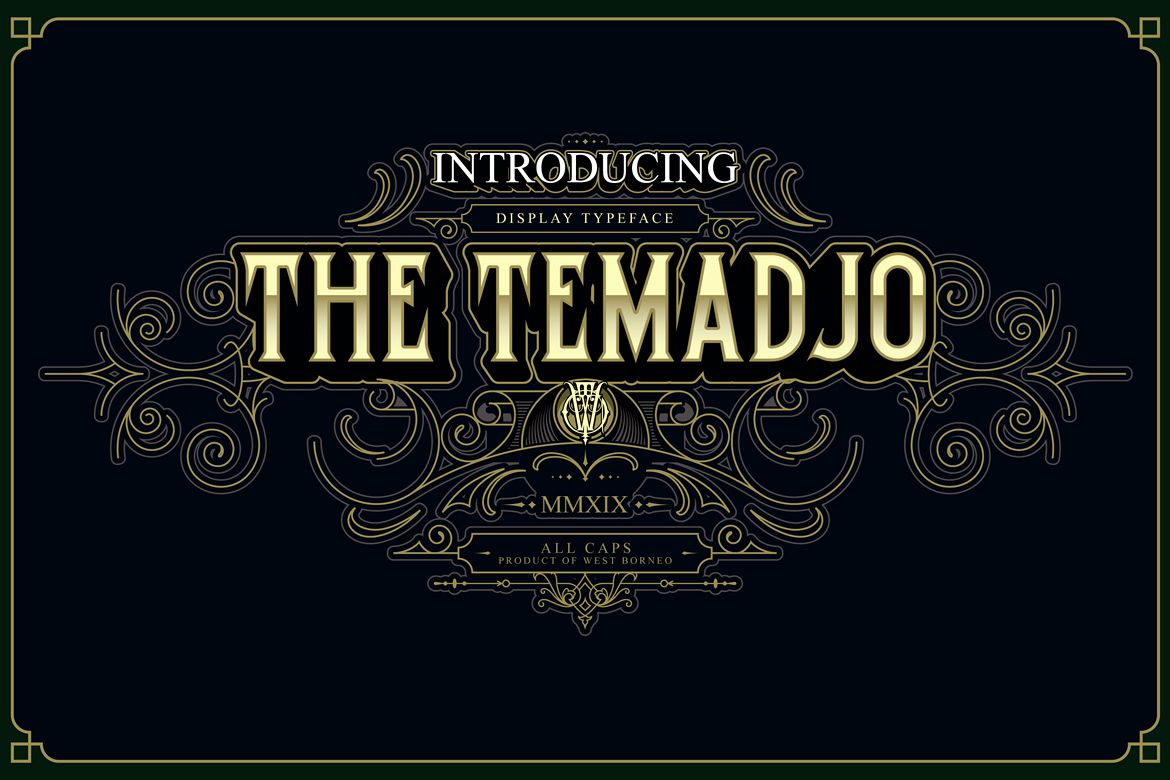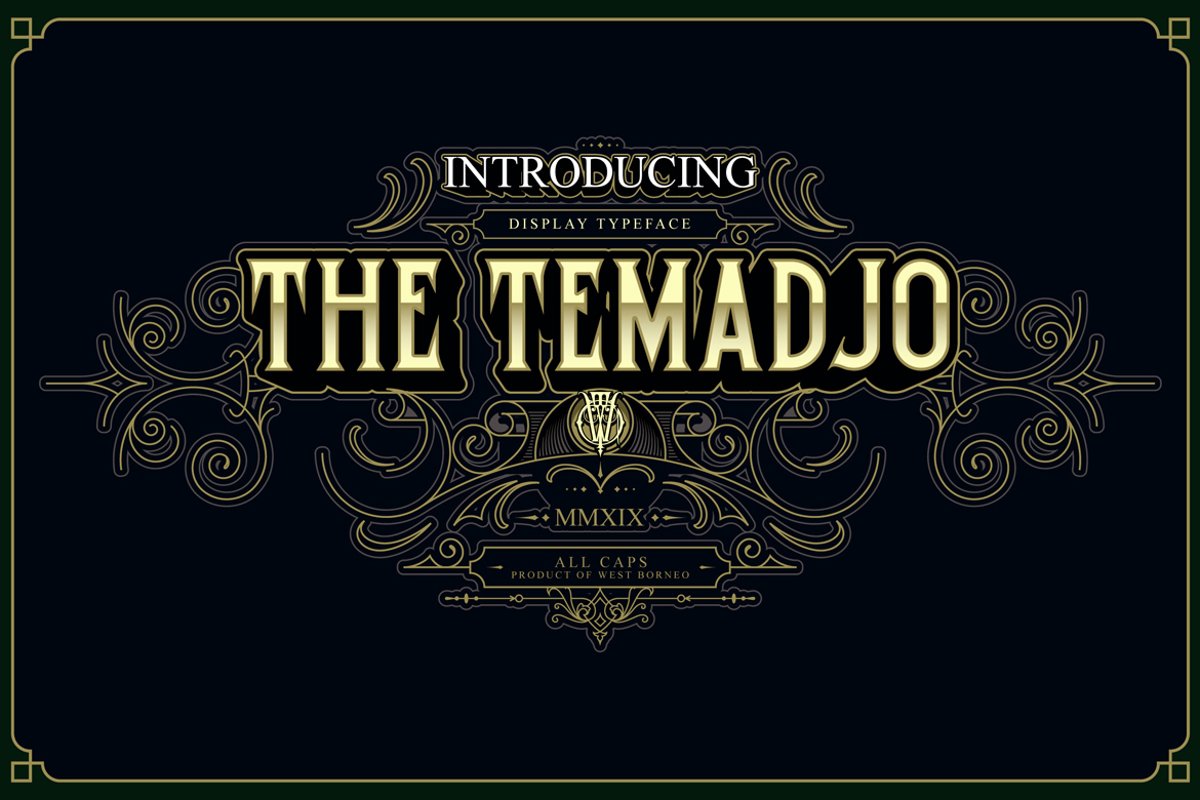
Temadjo
Temadjo grunge
This Temadjo font is
inspired by biker, band, ink, Tattoo vintage label.
Temadjo font is perfect for badges, branding, labels, apparel,
headlines, signage, logo, quote, apparel and other creative
applications.